The best modern fonts for logo design blend style, versatility, and uniqueness to create a memorable brand identity. In today’s fast-paced digital world, a timeless design is preferred in making a sustainable environment.
Top Best Modern Fonts for Logo Design
While classic fonts have their era, modern typography offers fresh aesthetics with its adaptive flexibility across digital and print media. With countless fonts available, we recommend our top modern fonts to get you started and inspired. Let’s check them out!
1. Greatness Culture
Starting with Greatness Culture, this duo font includes a luxurious sans-serif font and an elegant script font. A cohesive concept combining flowy accents in sans-serif style and clean appearances on the script.
2. Conventri
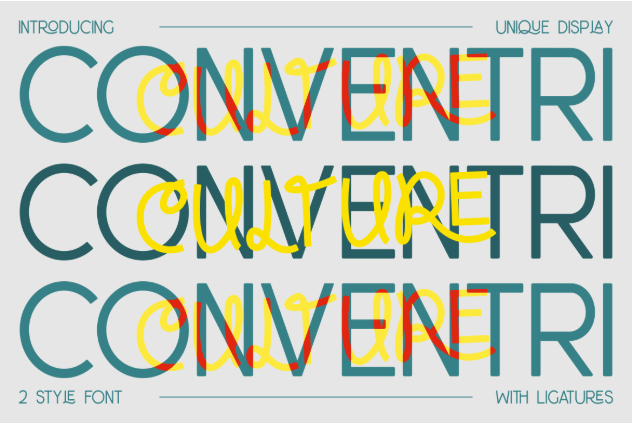
Conventri is another duo font, but this one focuses on a clean and familiar look. This font includes two modern sans-serif typefaces, geometric and curly styles.
3. Semisonic
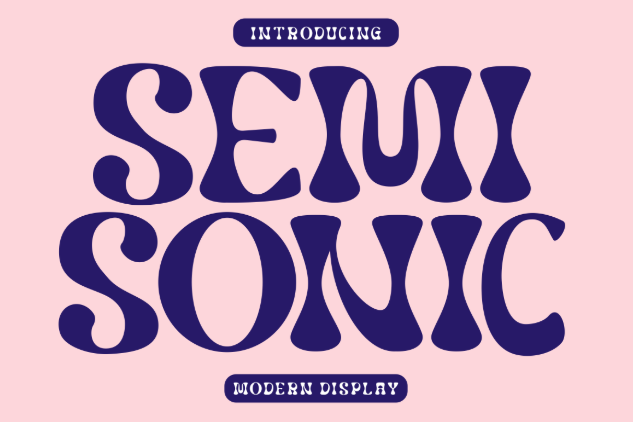
A font style like Semisonic is a combination of vintage elements and a modern touch, reflecting a staple through time. This display font has a great visual appeal with its swelling letterforms.
4. Glareous
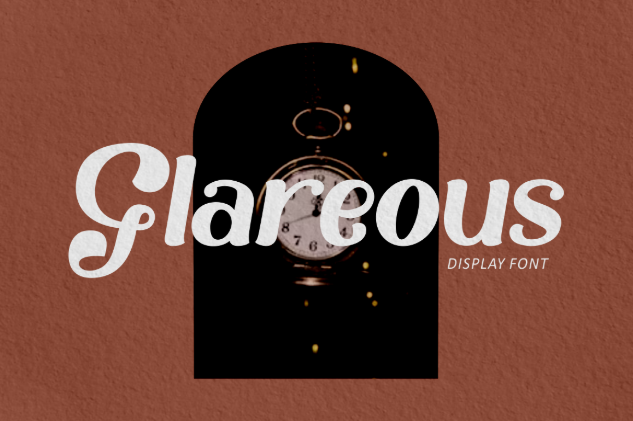
Among our best modern fonts for logo design, Glareous masterfully balances readability, elegance, and eye-catching visuals. Its beautiful letterforms combined with the flowy ornaments will make a great logo design.
5. Monck
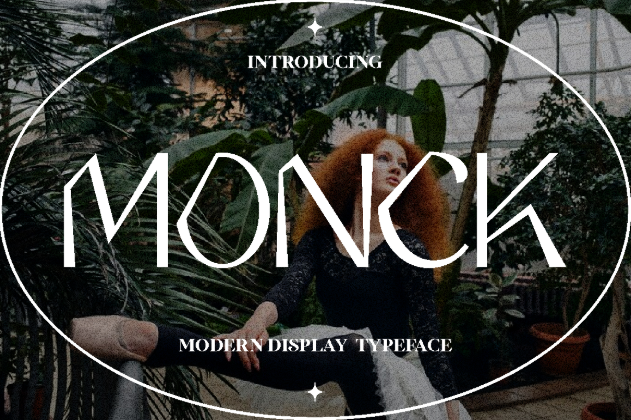
While cutting corners is not recommended, Monck’s corner cuts are worth trying. Monck is not just a representation of an existing design, it is a whole new typeface.
6. Behooved
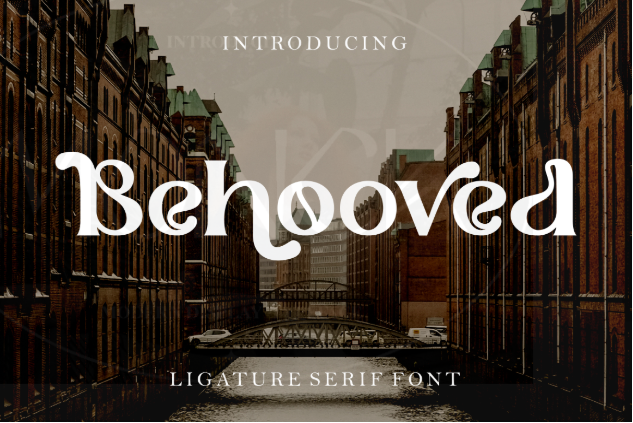
Behooved is a modern serif font focusing on elegance and sophistication. You can find its unique letterforms in its ligature slots that’ll make a unique logo visual.
7. Corvail
Corvail is a two-type font based on an elegant sans serif typeface. This font includes regular and hollowed/ornamented letters, creating a limitless combination for your logo.
8. Savenir
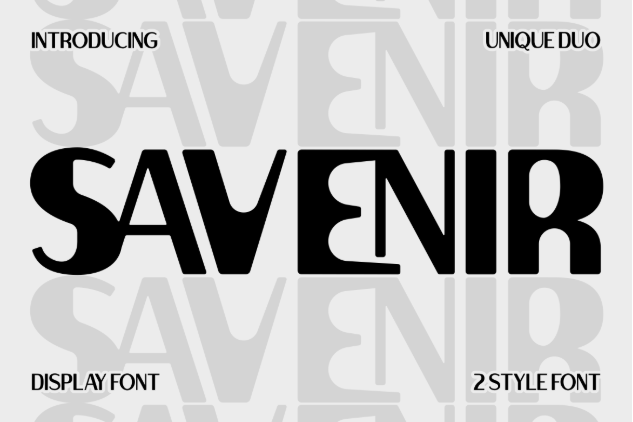
Savenir is a unique duo font that combines bold sans-serif font and display typeface. Its display font utilizes a dramatic look mimicking a spotlight’s appearance.
9. Funky Form
Funky Form is a geometric font with 3D effects and isometric visuals. It’s actually based on hexagonal shapes but its shadow effects create a whole new dimension.
10. Linust
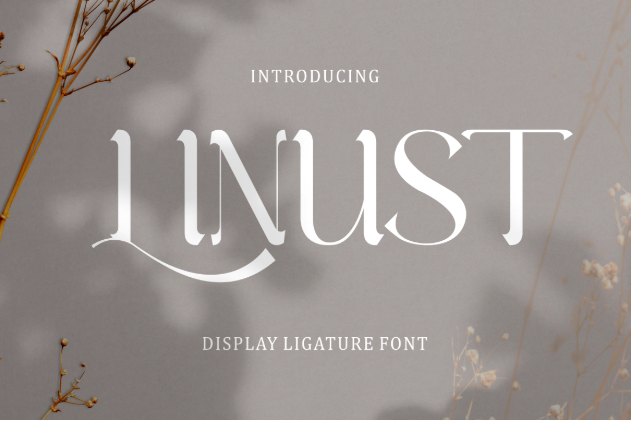
Linust is a modern display font that utilizes its ribbon-like strokes beautifully. This font has elegant, flowy swashes and ornaments on top of a modernized blackletter.
11. Wezer
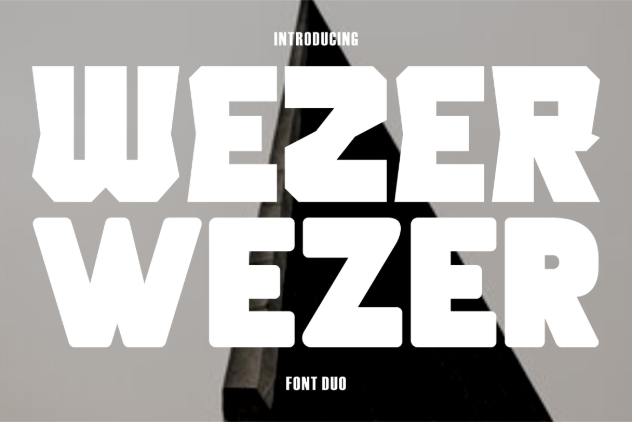
Wezer is another font duo on our list, both of them are bold display fonts. One is a regular and the other has an “X” profile on each letter.
12. Central Vintage
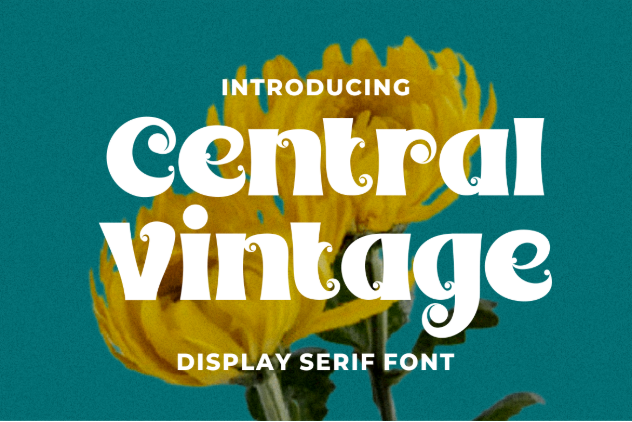
Despite its name, Central Vintage has modern visuals. Combining display typeface and twirly details, this font creates a refreshing and young appeal.
13. Comet Hotspur
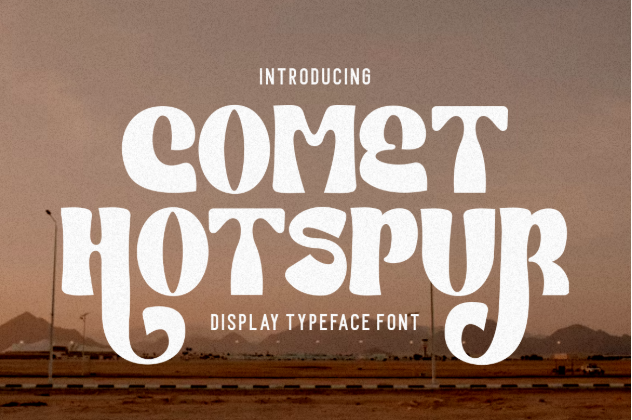
Comet Hotspur is a one-of-a-kind display font and that feature is a great logo material. This font combines both vintage and modern details ensuring a timeless design.
14. Blue Pastel
Blue Pastel is a charming display font. Its wide strokes balance rigid structures and flowy aesthetics. You can tell how each font is formed just like a handwritten style.
15. Vidage
Vidage is made for logo designs, this elegant font chooses a wide look to grab better attention. Combined with its floral ornaments, you can create a modern and sophisticated logo.
16. Dudley Castle
If you’re planning on making a swashful logo design, use Dudley Castle. This font has great legibility, wider kerning, and generous ornament options.
17. Tofes
Tofes is a sophisticated font with elegance as its core. Depending on your concept, this font can easily merge into it, including fashion, cafe, or even traditional logo concepts.
18. Merside
Merside is a decorated serif font with classic and elegant visuals. This font has a crisp, refined look combined with the occasional twirly ornaments.
19. Violense
Violense is a display font based on a serif typeface. So, this font’s regular appearance is a serif font with a unique butterfly effect as its alternate look.
20. Arjunka
Our best modern fonts for logo design also include futuristic typefaces like Arjunka. It’s a condensed typeface imbued with street, underground influence that evokes a dystopian look.
Best Modern Fonts for Logo Design Matter for Timelessness
Modern fonts typically have an overall stylish appearance, yet they have clean cuts that maintain legibility and readability. Those are true supportive aspects of creating a timeless logo style.